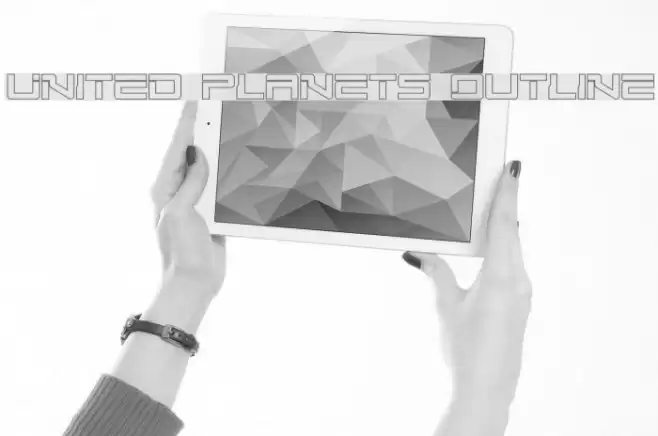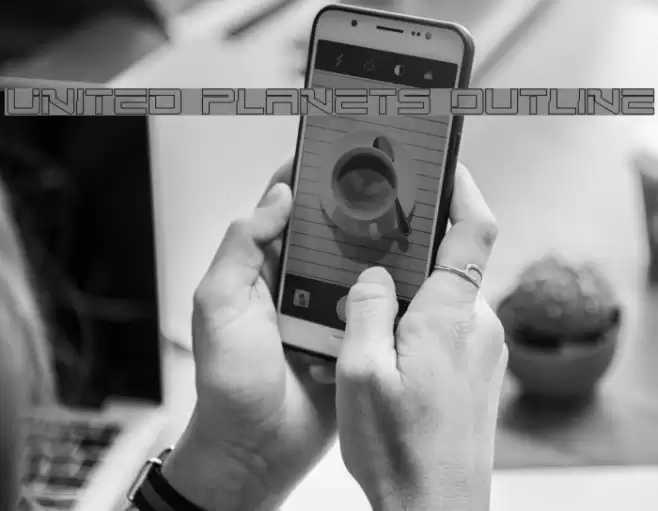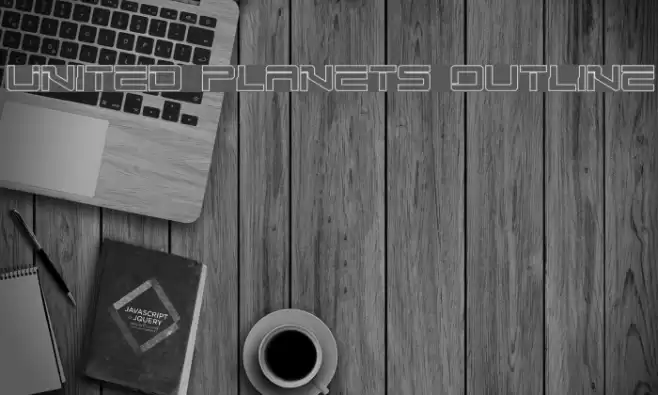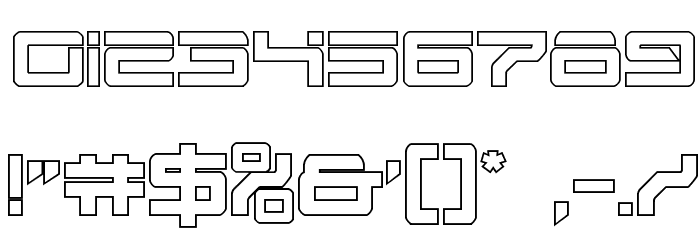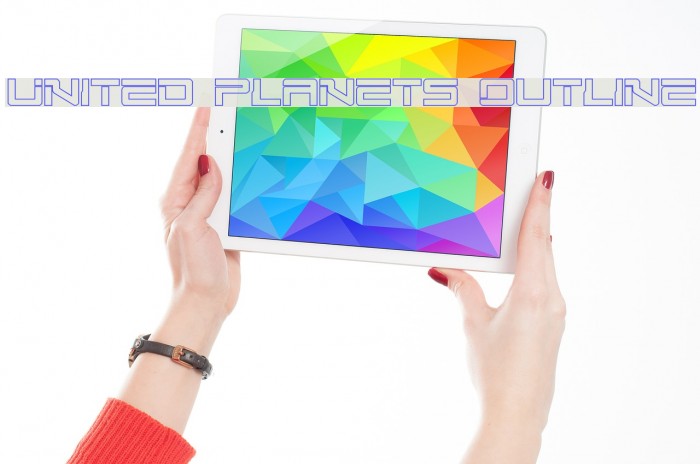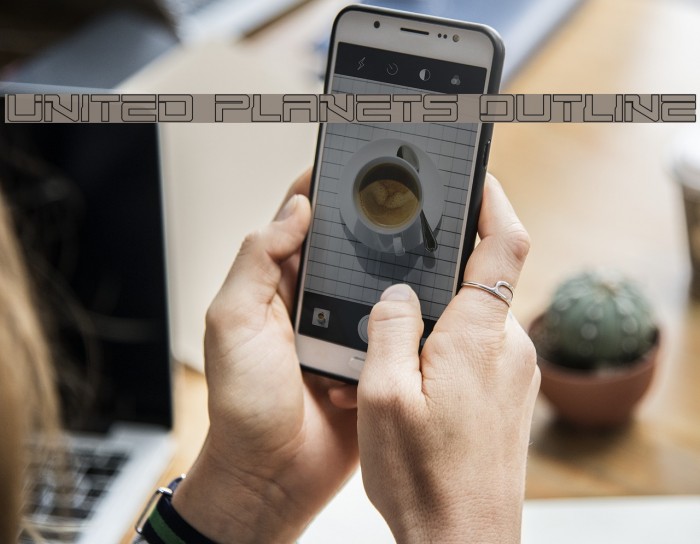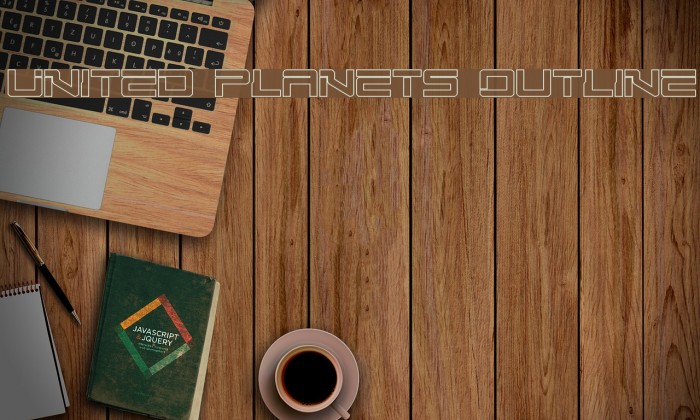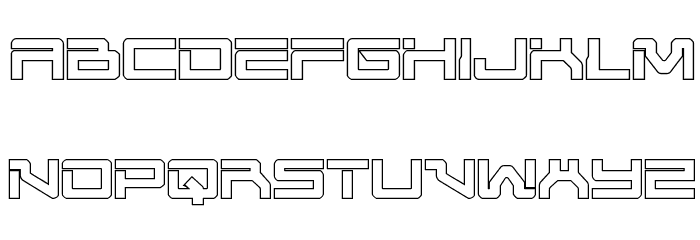
United Planets Outline Font
United Planets Outline Description
This font features a futuristic and geometric design, characterized by its outline style that gives it a unique, space-age appearance. The letters are constructed with straight lines and sharp angles, creating a structured and modern look. The uppercase and lowercase letters maintain a consistent style, with the uppercase being slightly more pronounced. Numbers and special characters follow the same design principles, ensuring uniformity across all glyphs. The font's outline nature makes it ideal for designs that require a bold statement without being overly heavy. Its clean lines and distinct shapes make it suitable for a variety of creative projects.
A futuristic, geometric outline font with sharp angles and clean lines from Uncategorized fonts.
- Proposed Projects: Ideal for sci-fi themed posters, video game graphics, futuristic branding, and digital artwork.
- Overall Style: Futuristic